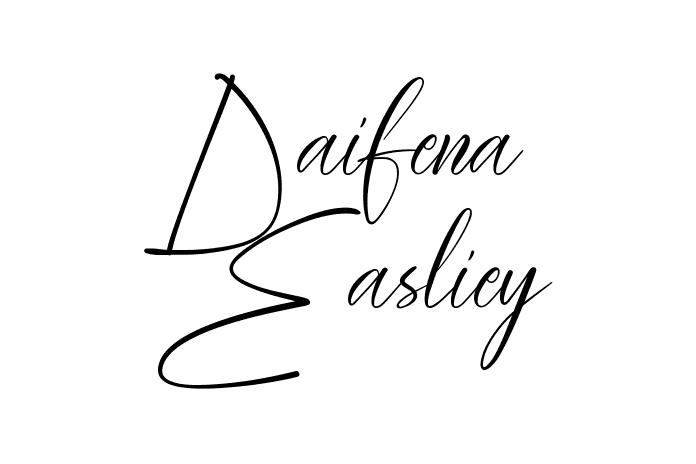
Friends Font
You can make appealing designs with the use of this typeface such as Logo designs, Business cards, Posters, Movies trailers,  Fashion designs, T-shirt designs, branding.
Font Family Gabriel Weiss' Friends Font
Typeface classification Handwritten